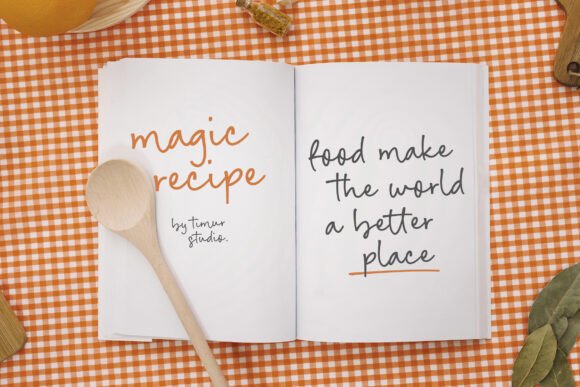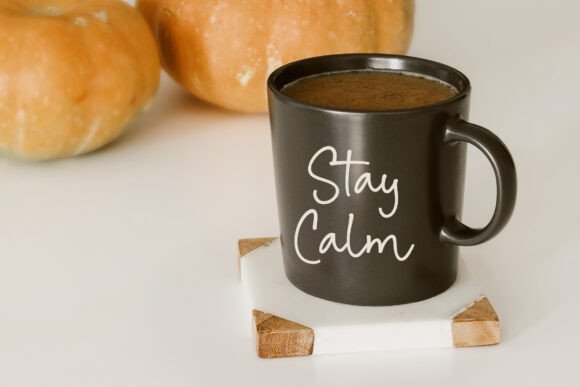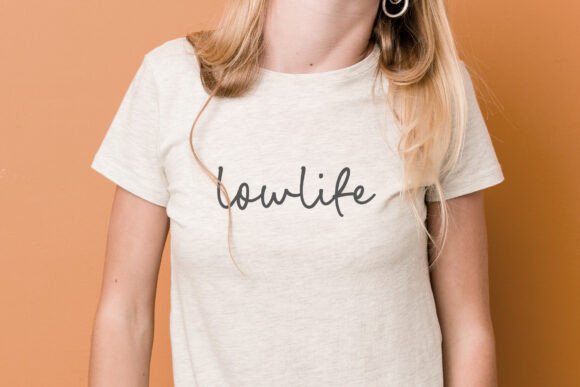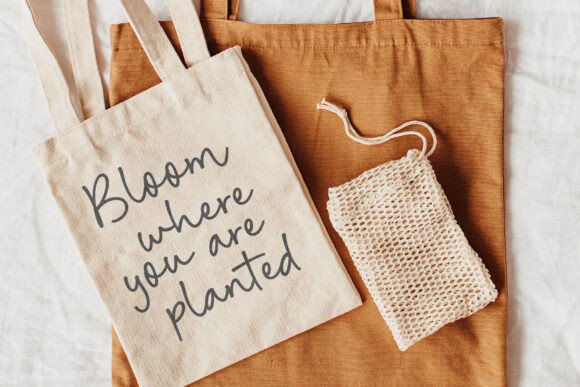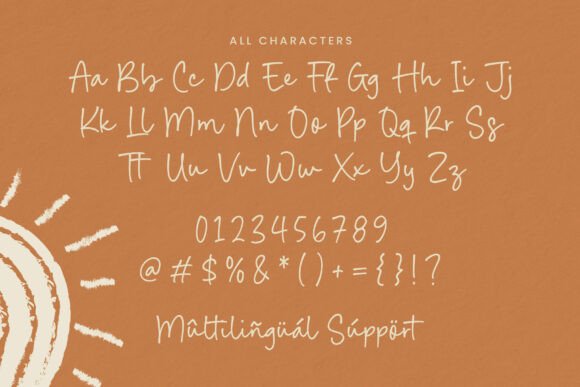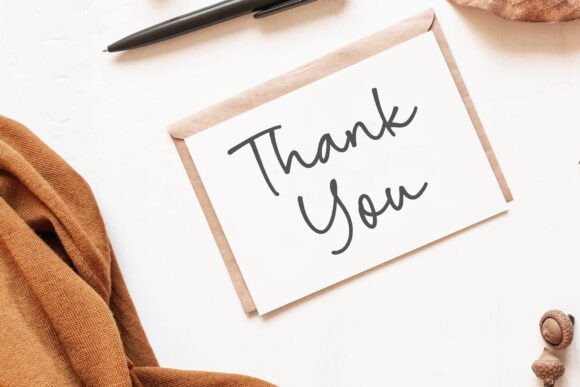
Introduction to Malibu Sunset Font
As you sit on the beach, watching the vibrant colors of the sunset fade into the horizon, you can’t help but feel a sense of tranquility wash over you. The gentle waves and warm breeze evoke a feeling of relaxation, and you can’t wait to capture that essence in your next design project. For designers, finding the perfect font to convey a laid-back, beachy vibe can be a challenge. That’s where the Malibu Sunset Font comes in – a modern handbrushed script font that embodies the carefree spirit of the coast.
Whether you’re working on a branding project, creating invitations, or designing a logo, the Malibu Sunset Font is an invaluable resource. Its fluid, organic strokes evoke a sense of elegance and casual charm, making it perfect for any creative project that needs a touch of sophistication and laid-back style.
Key Features of Malibu Sunset Font
- Unique, hand-drawn design ideal for creative projects and artistic endeavors.
- Comes with a transparent background, allowing for seamless integration into various design settings.
- High-quality font, suitable for print and digital applications, including signage, logos, and branding materials.
- Perfect for adding a touch of warmth and elegance to your design, with its soft, sunset-inspired color palette.
Honest Review: Malibu Sunset Font
As a designer, I’m always on the lookout for high-quality design resources to elevate my creative projects. Recently, I came across the Malibu Sunset Font, and I’m excited to share my honest review with you.
What works well: ✨ The Malibu Sunset Font is a stunning free download that’s perfect for adding a touch of sophistication to your designs. The font features a beautiful, hand-painted look with intricate details that make it stand out. The transparent background makes it easy to use in a variety of design scenarios.
- High-quality design: The font is beautifully crafted with attention to detail
- Transparent background: Easy to use in various design scenarios
- Perfect for creative projects: Adds a touch of sophistication to any design
Any limitations: ⚠️ While the Malibu Sunset Font is a great addition to any designer’s toolbox, it may not be suitable for all design projects. The font’s hand-painted look can be a bit overwhelming if used in large quantities, so be sure to use it sparingly.
Overall impression: I’m thoroughly impressed with the Malibu Sunset Font. It’s a high-quality design resource that’s perfect for adding a touch of elegance to your creative projects. With its beautiful, hand-painted look and transparent background, it’s a must-have for any designer looking to elevate their designs.
Tips for Getting the Most Out of Malibu Sunset Font
Use the Malibu Sunset Font to add a touch of elegance and sophistication to your designs. You can use it for a wide range of creative projects, from wedding invitations to social media graphics. Experiment with different font sizes and colors to get the most out of this high-quality design resource.
The Malibu Sunset Font is perfect for designs that require a touch of luxury and sophistication. Some common use cases include:
- Social media graphics and promotions
- Editorial and magazine design